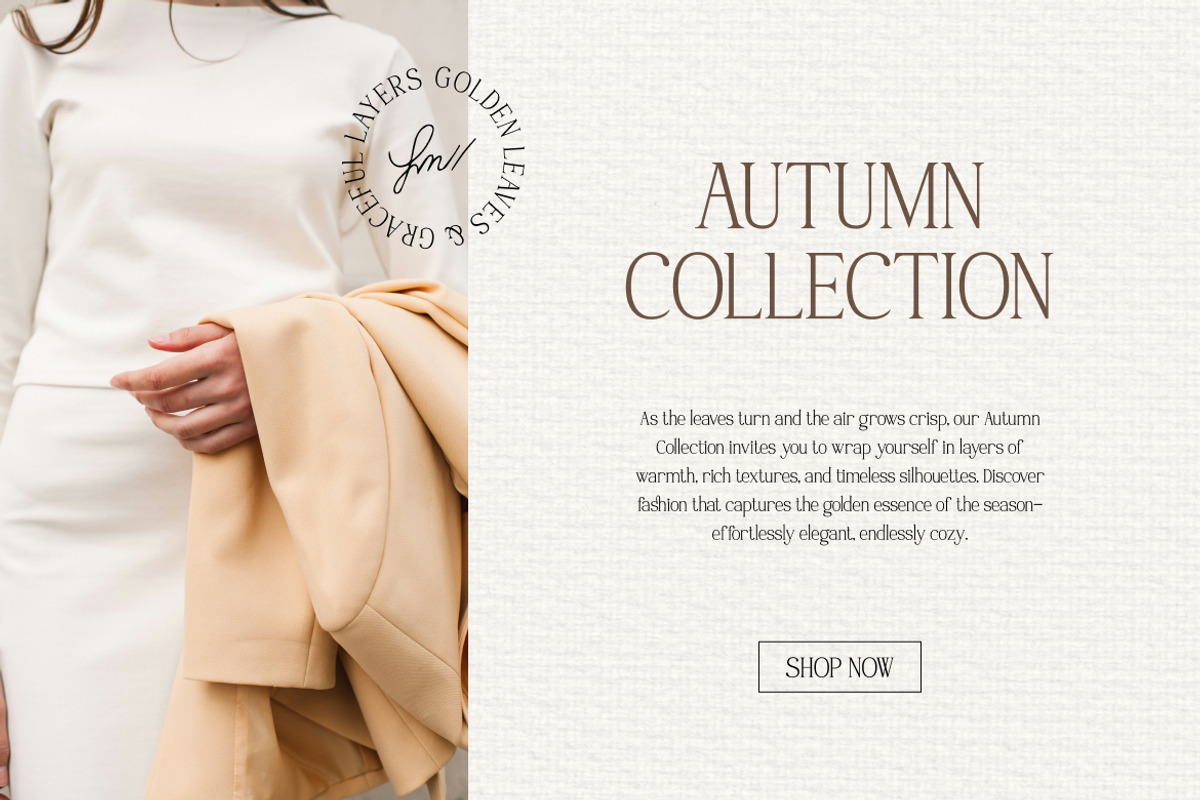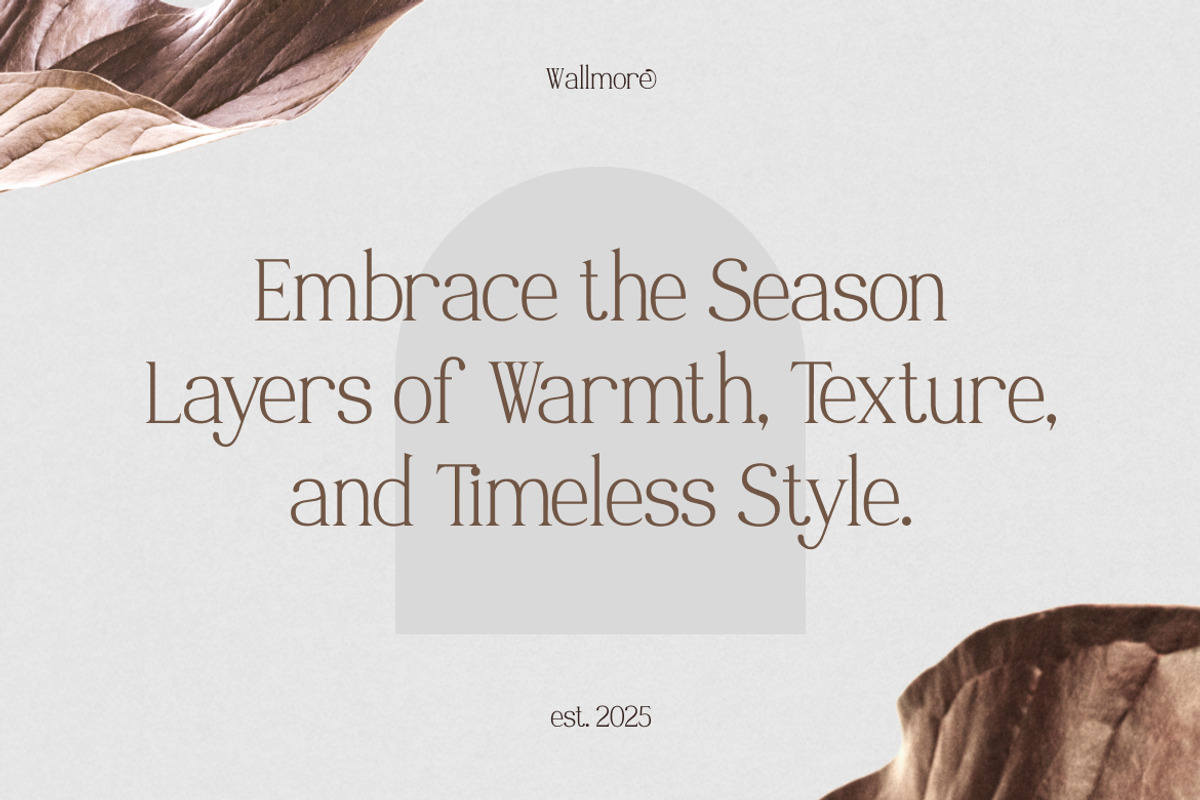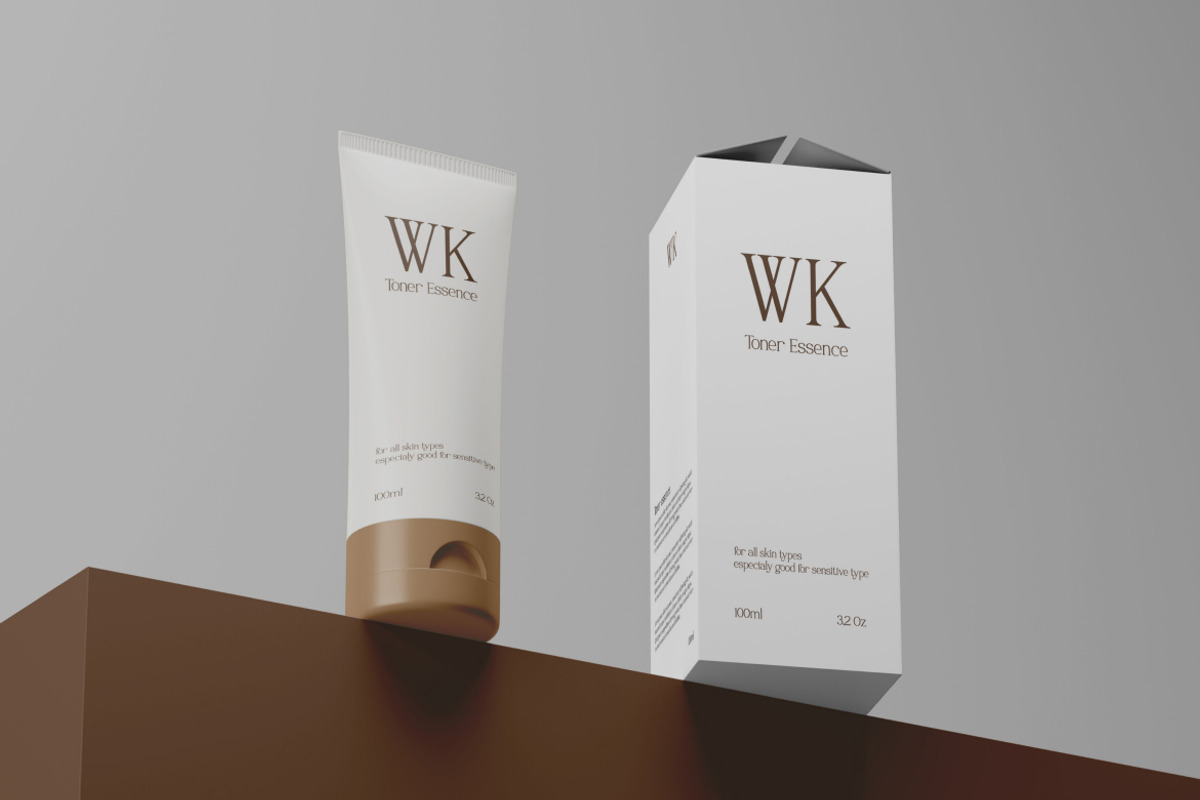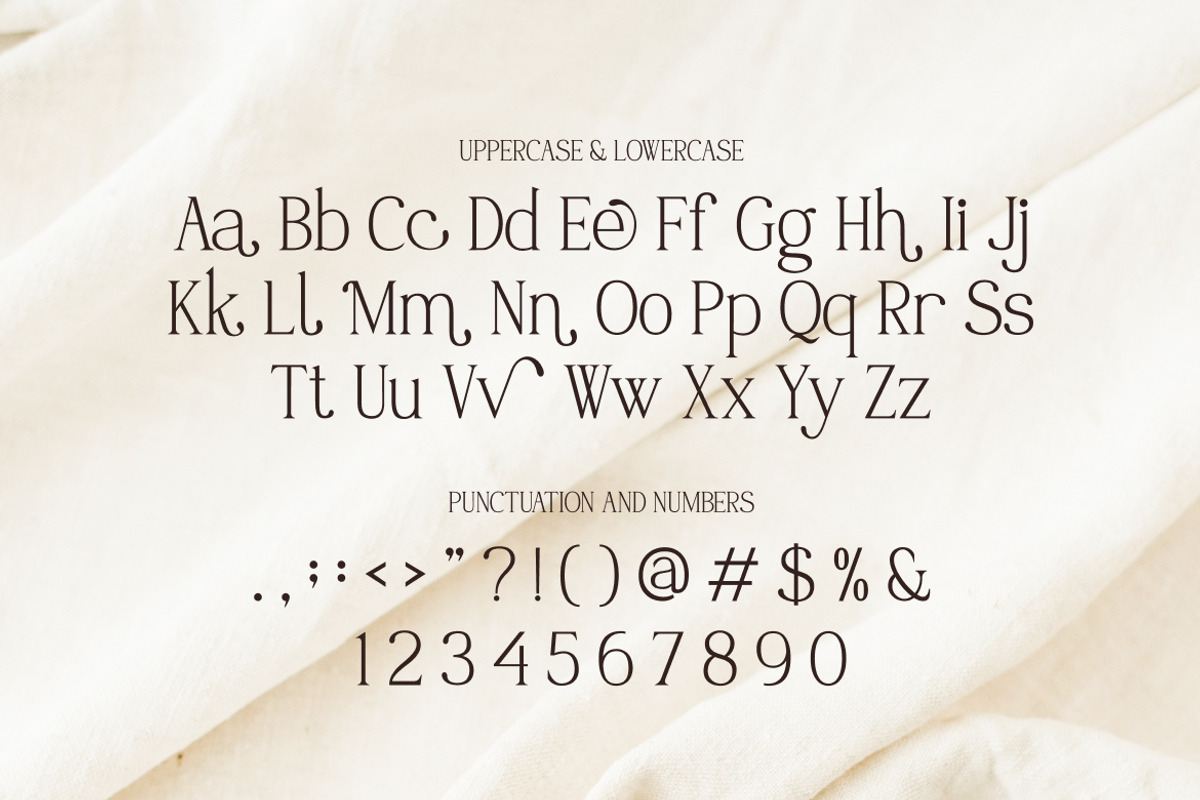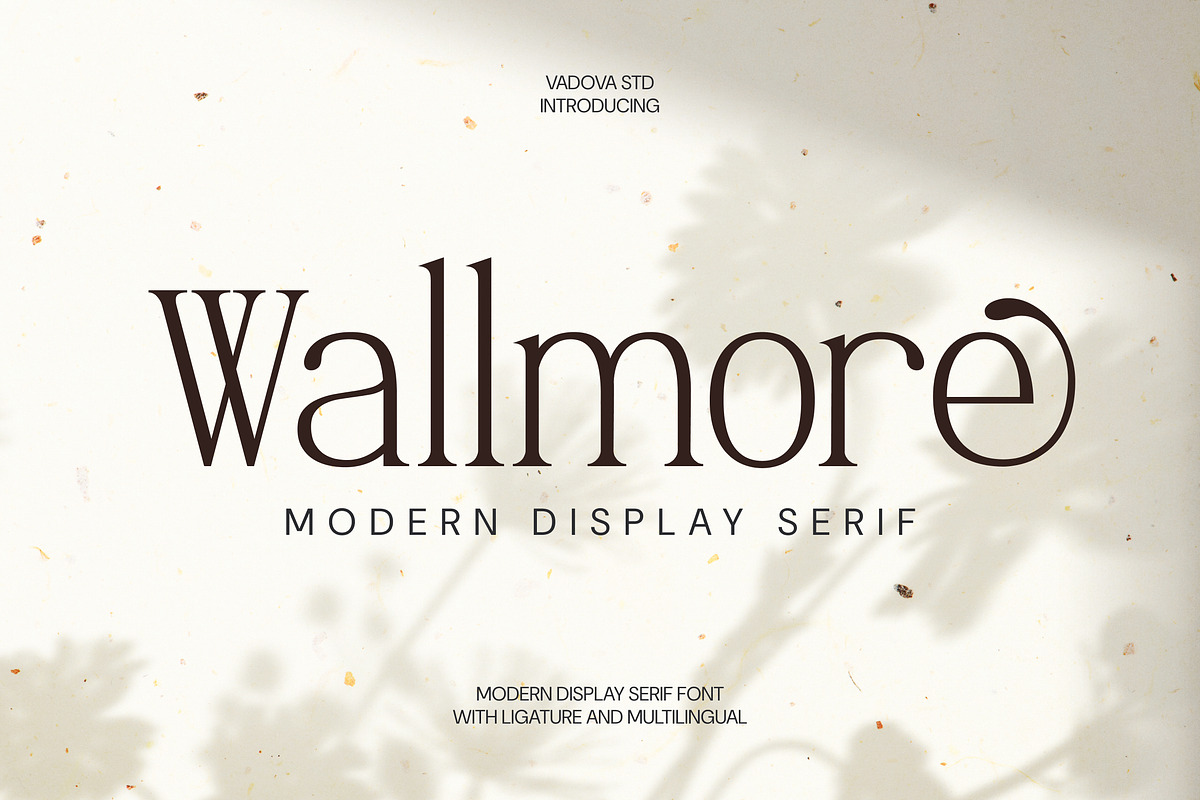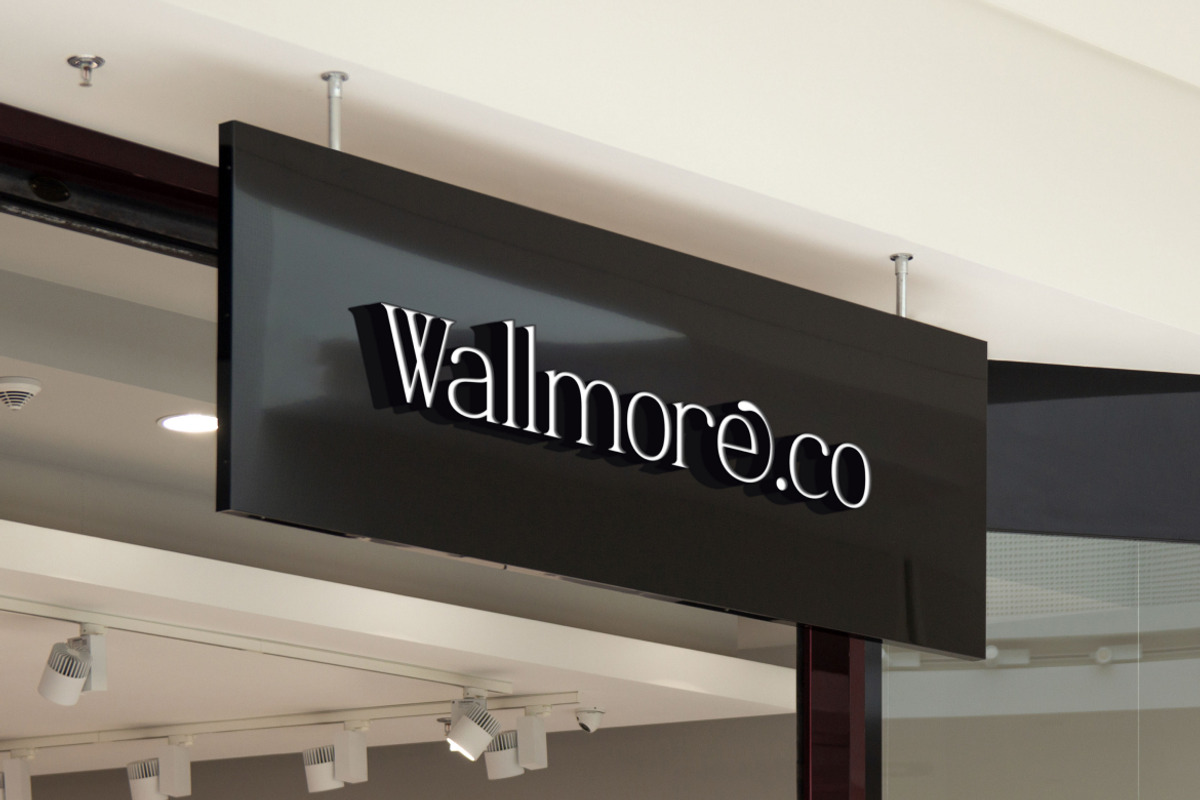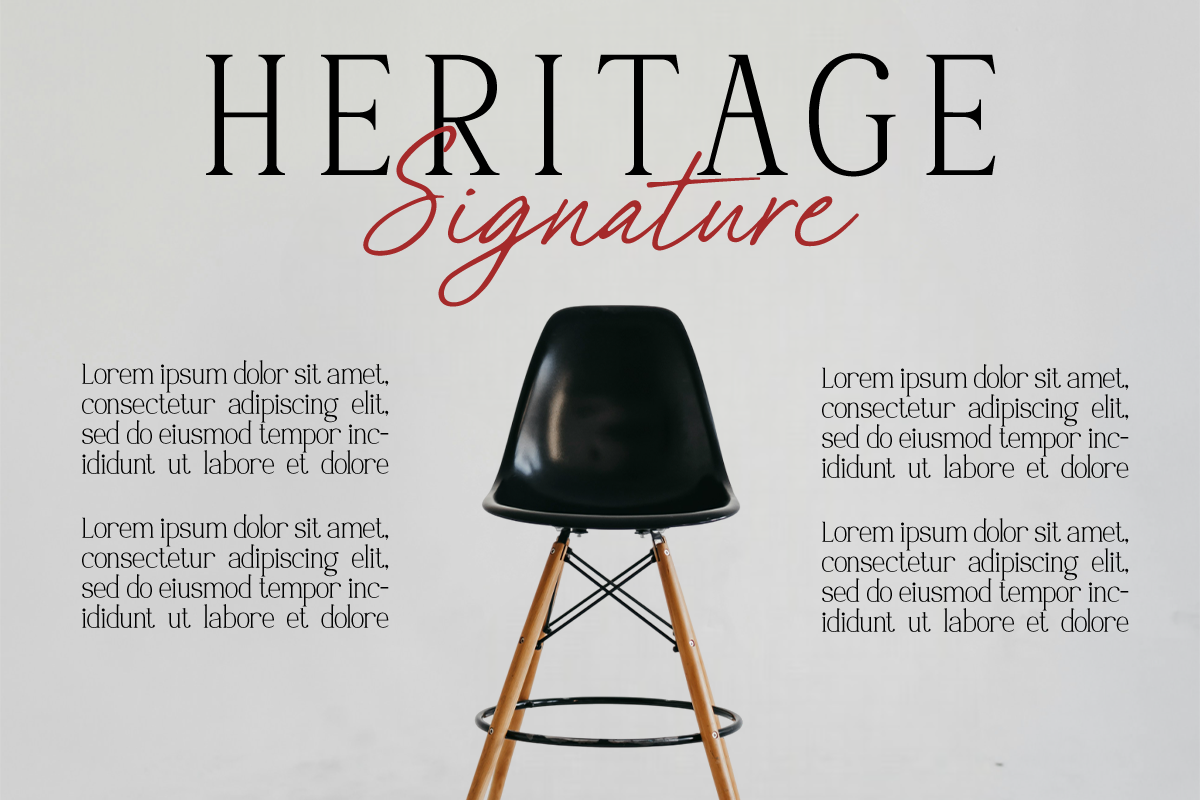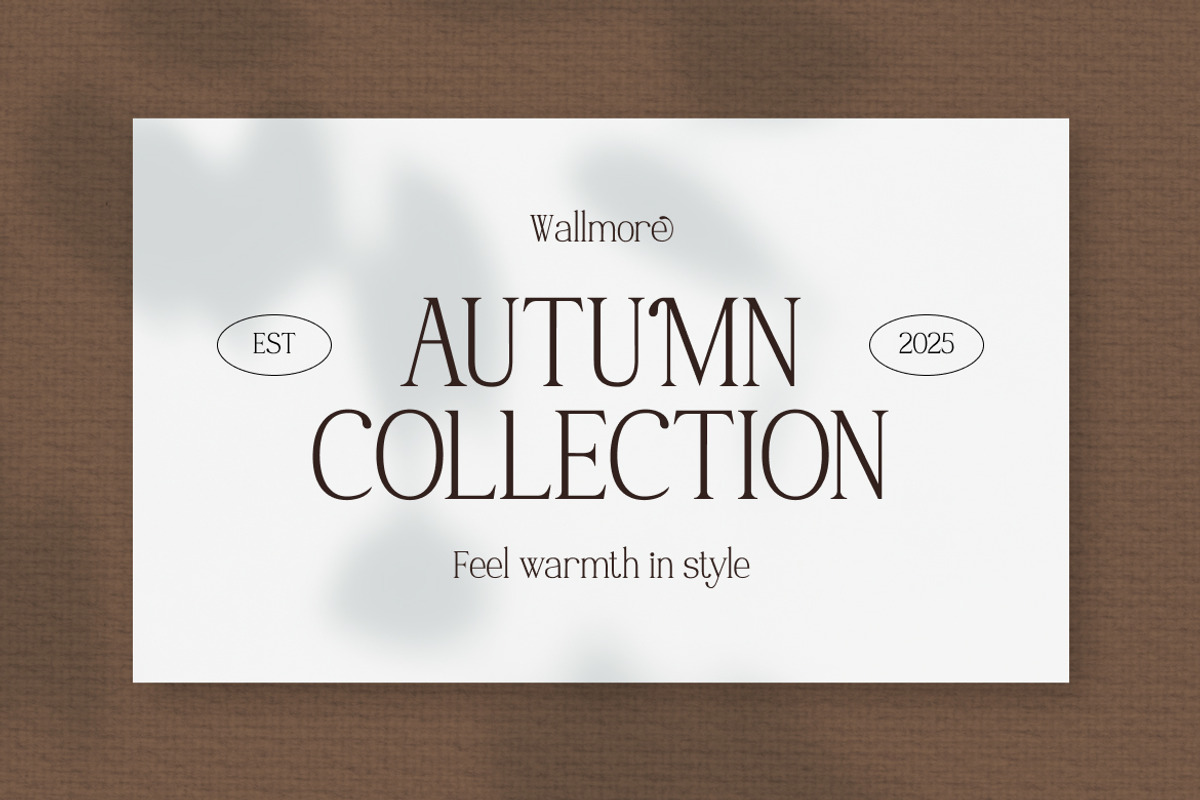
Wallmore – Elegant Display Serif
Wallmore is a modern display serif typeface that blends refined elegance with contemporary character. Featuring stylish letterforms, subtle ligatures, and graceful curves, Wallmore adds a sense of luxury and sophistication to any design project. Perfect for editorial layouts, fashion branding, wedding stationery, and upscale packaging, this typeface delivers beauty and clarity in equal measure.
Why Choose Wallmore:
Modern serif design with artistic flair
Elegant and refined for luxury-driven visuals
Unique ligatures for creative typographic expression
Versatile for both print and digital projects
Fashion branding & lifestyle identity
Editorial magazines & book design
Wedding invitations & stationery
Luxury packaging & product design
Logo design & signature marks
Social media content & digital campaigns
Modern elegant serif style
Decorative ligatures & multilingual support
High readability with stylish details
Balanced for both headlines and branding
A timeless serif crafted for beauty, charm, and modern sophistication
Bring refinement and contemporary elegance into your creative work with Wallmore, a serif font designed to inspire.